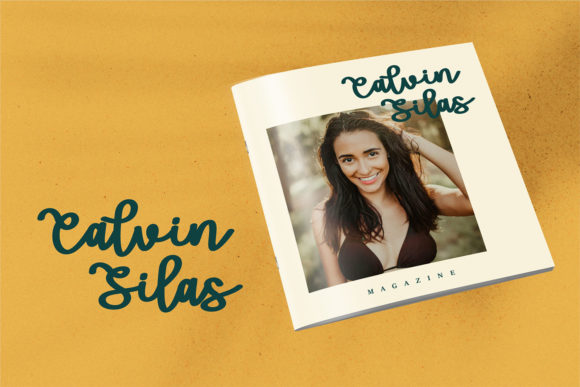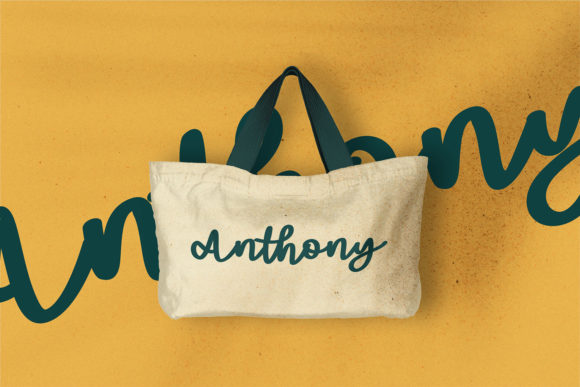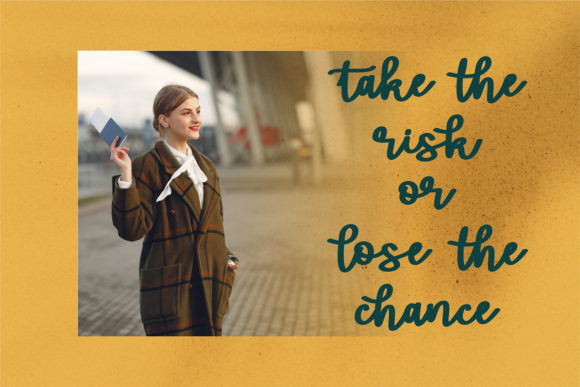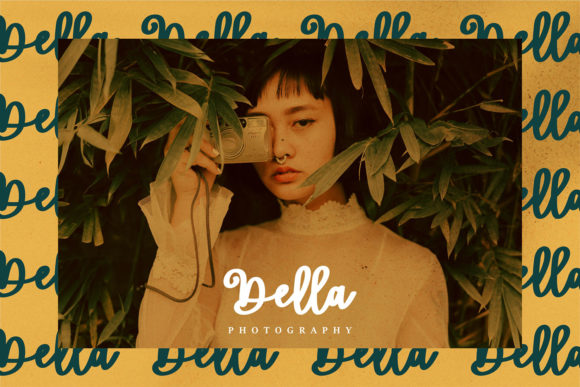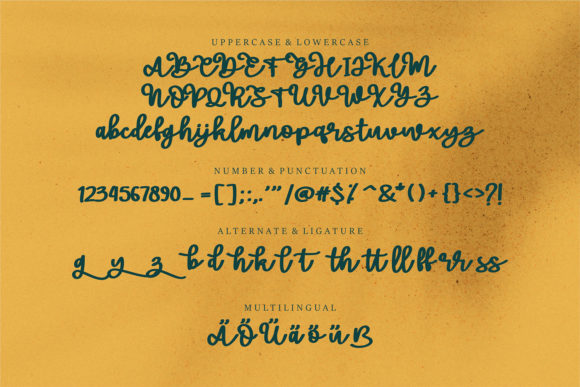
Raymond Font
About Raymond Font
Raymond is a beautiful and cursive handwritten font. It has a timeless flow and it sends out an incredibly lovely vibe. Add it to your most creative ideas and notice how it makes them come alive!